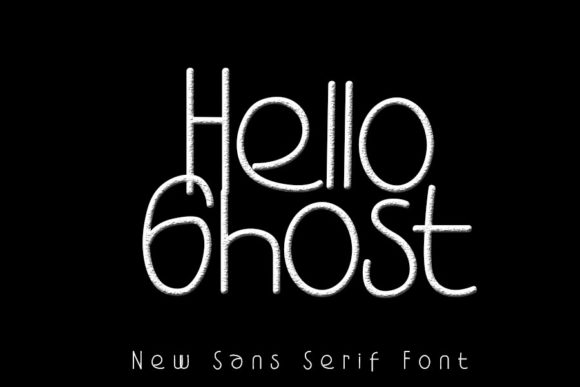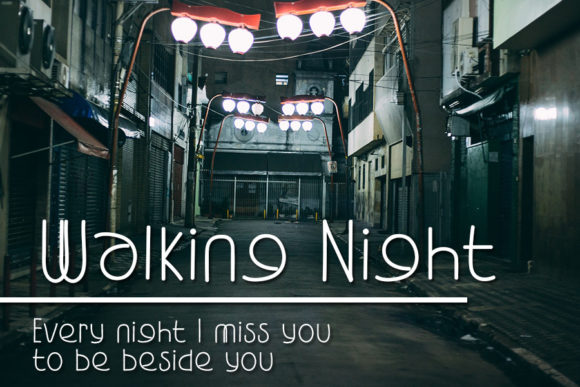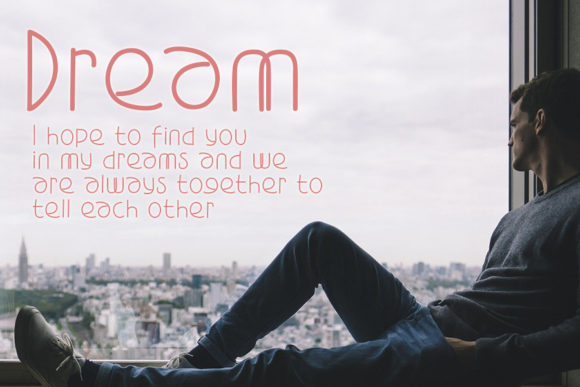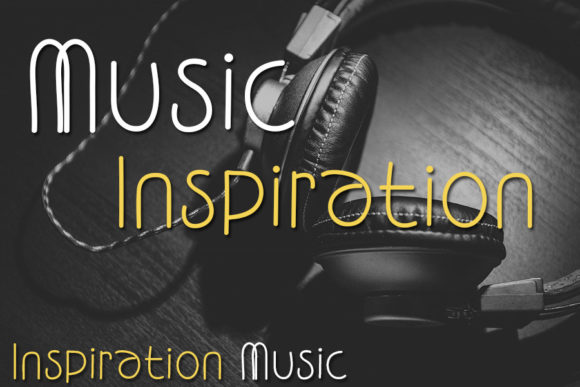
Hello Ghost Font
About Hello Ghost Font
Hello Ghost is a simple, cute and round lettered handwritten font. No matter the topic, this font will be an incredible asset to your fonts’ library, as it has the potential to elevate any creation.